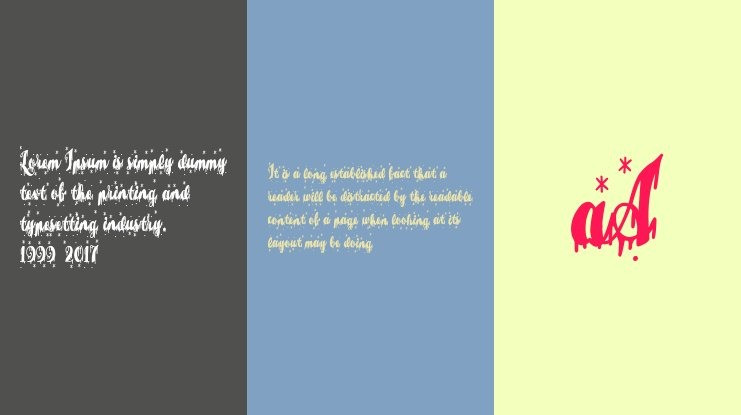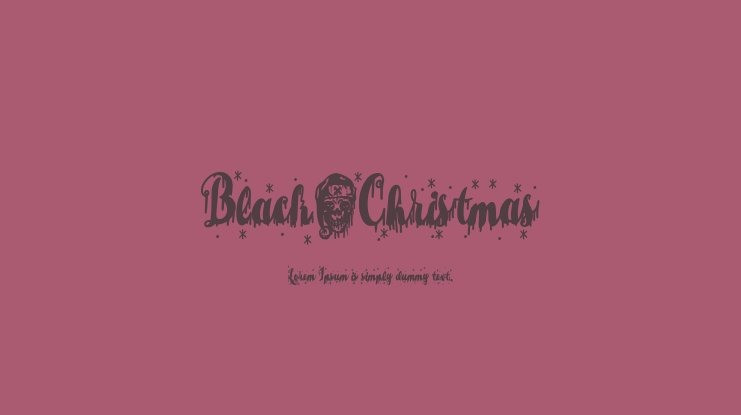
Black Christmas Font
Black Christmas Font, This Font is made for Christmas holidays, all forms of business and branding like clothing, logos, and others as per your need.